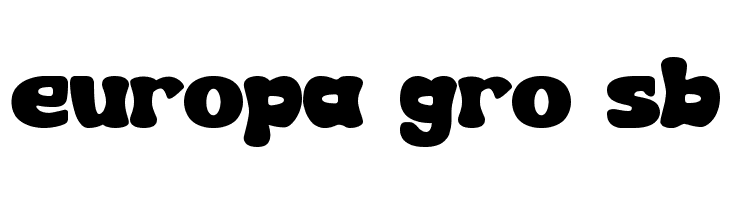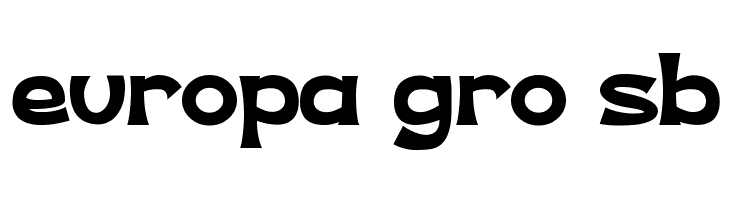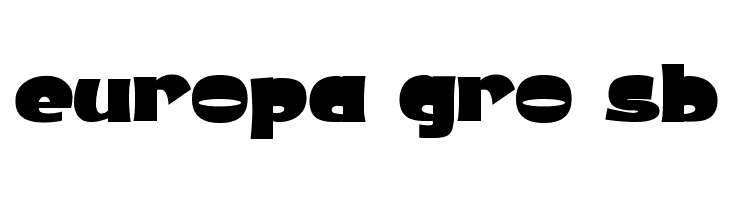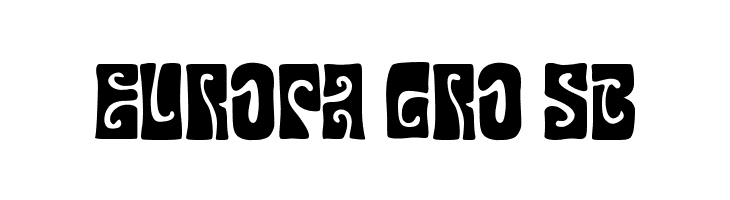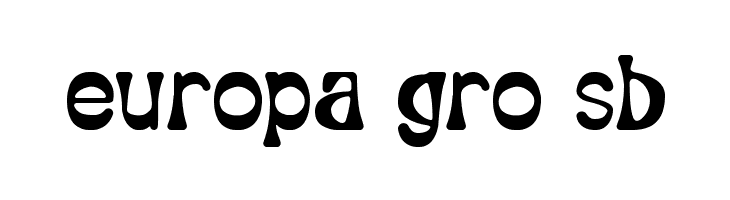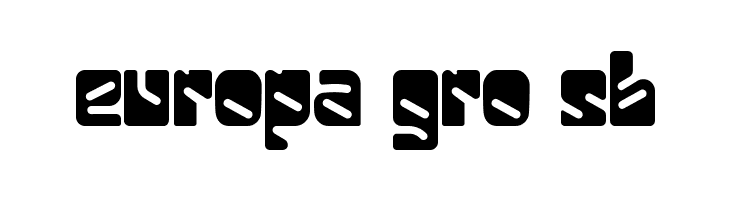
( Fonts by Type on Studio )
A playful, bold font with rounded, bubbly characters and a whimsical style.
( Fonts by Pinisiart )
A bold, playful font with rounded, bubble-like characters ideal for retro designs.
( Fonts by Modestype Studio )
A bold, playful font with thick, rounded characters and a whimsical style.
( Fonts by Pinisiart )
A bold, playful font with rounded, bubbly characters and a retro-modern style.
( Fonts by Pinisiart )
A playful, bold font with exaggerated curves and angles, perfect for creative projects.
( Fonts by Pinisiart )
A bold, playful font with a modern-retro aesthetic.
( Fonts by Tokokoo Studio )
A bold, retro font with playful, wavy contours and a psychedelic style.
( Fonts by Pinisiart )
A bold, playful font with retro, rounded letterforms.
( Fonts by Tokopress )
( Fonts by Pinisiart )
A bold, geometric font with a modern, artistic flair and unique cut-out patterns.